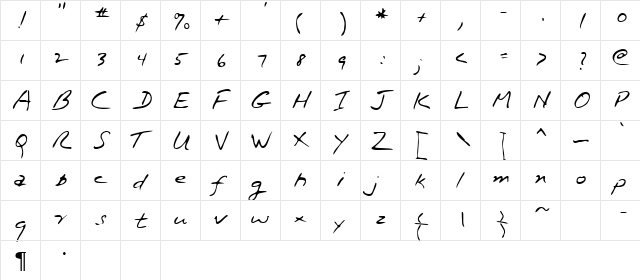
Covey Regular
Design Context for Covey Typeface
Covey is a composed and adaptable typeface that performs quietly and consistently across a wide range of design contexts.